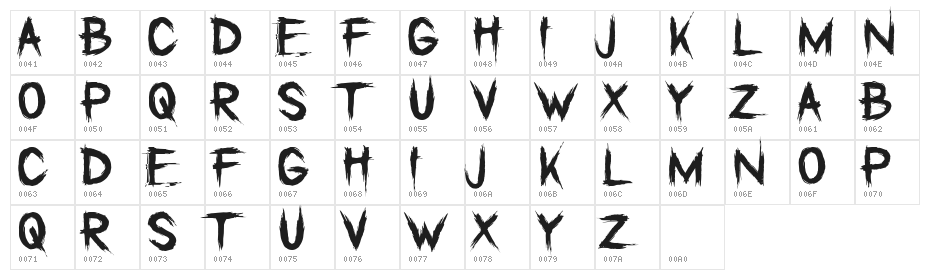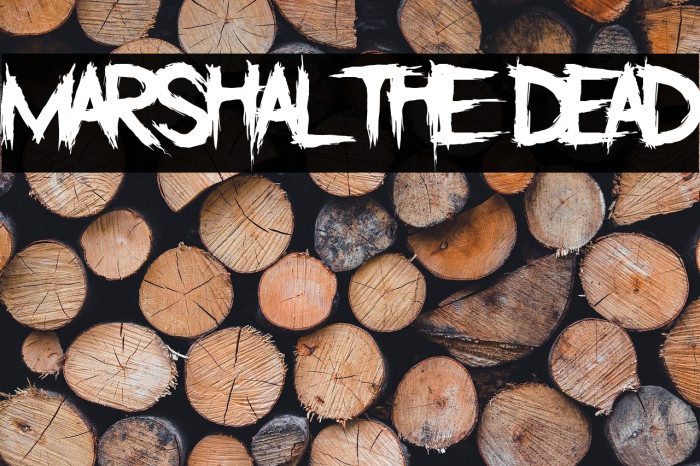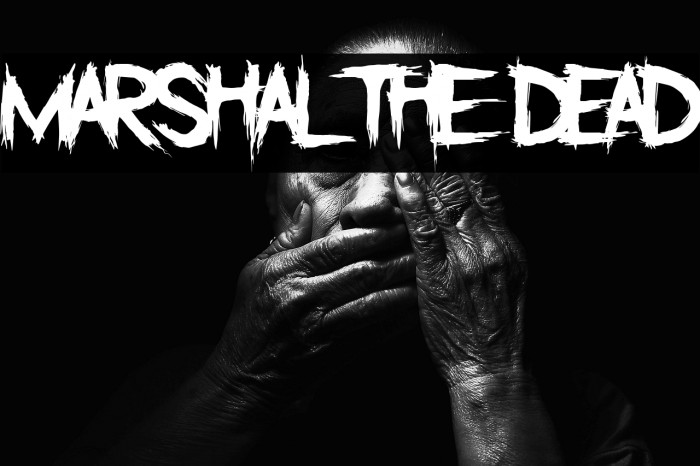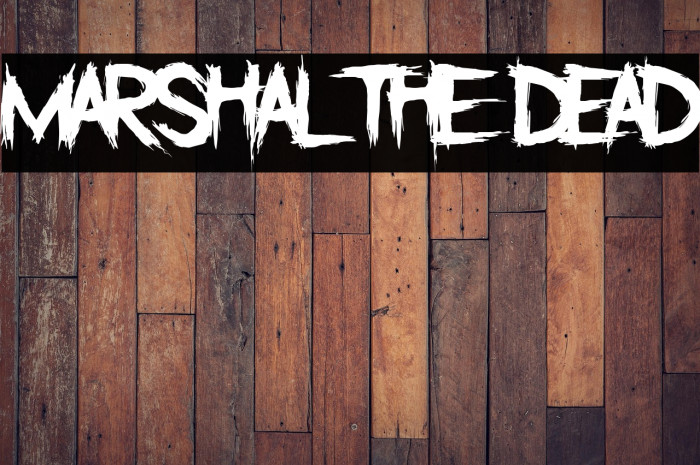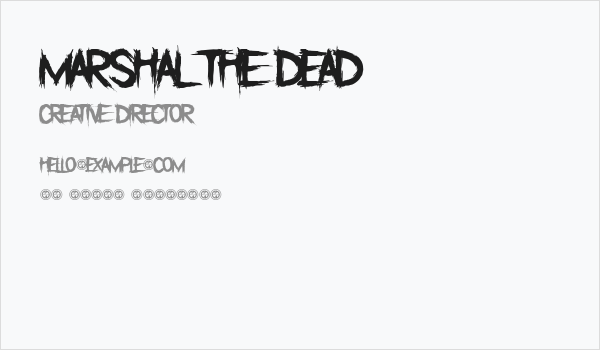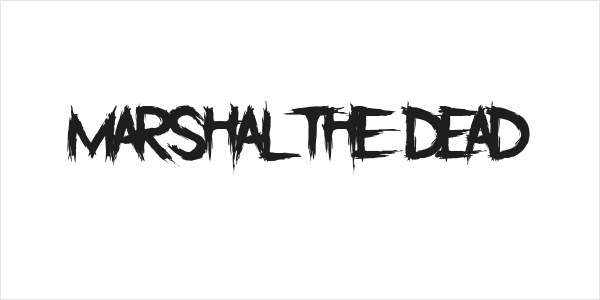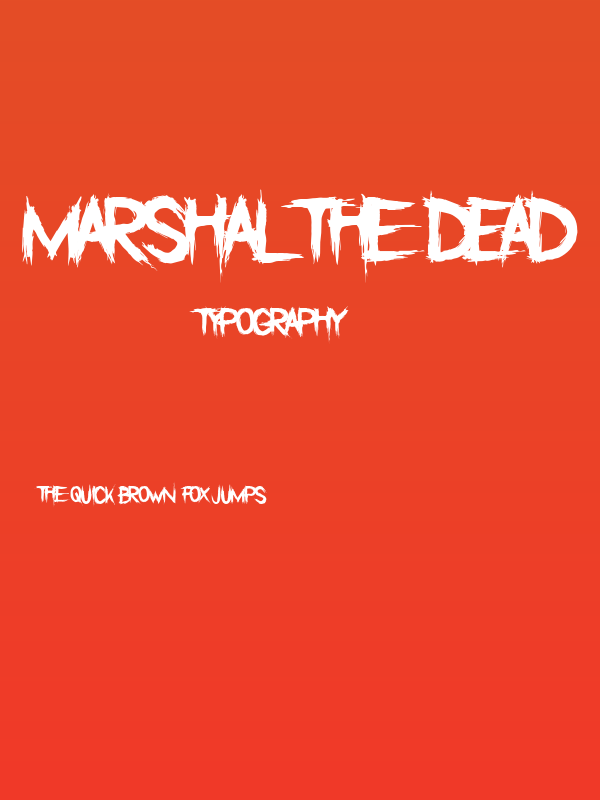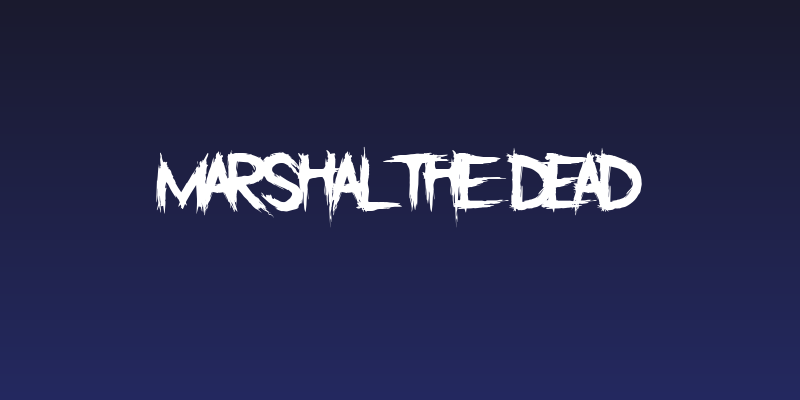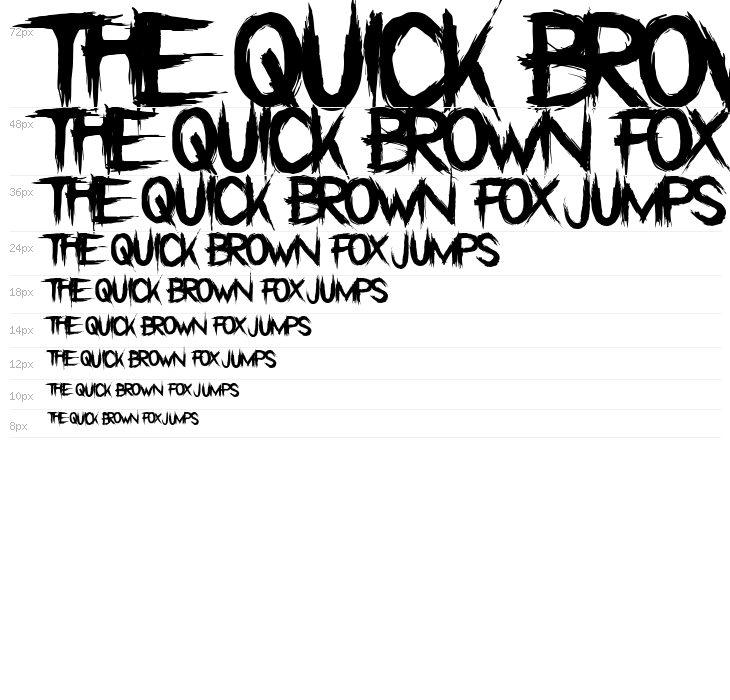
Marshal The Dead Font
Marshal The Dead Description
This font features a bold and aggressive style with jagged, rough edges that give it a distressed and chaotic appearance. The characters are designed to evoke a sense of urgency and intensity, with strokes that appear to be hand-drawn or painted with a brush. The uneven and irregular shapes of the letters contribute to its raw and edgy aesthetic, making it stand out as a statement piece. This font is ideal for projects that require a dramatic and impactful visual presence, such as horror-themed designs or rebellious branding. Its unique style captures attention and conveys a sense of movement and energy.
Proposed ProjectsIdeal for horror-themed designs, rebellious branding, album covers, and posters.